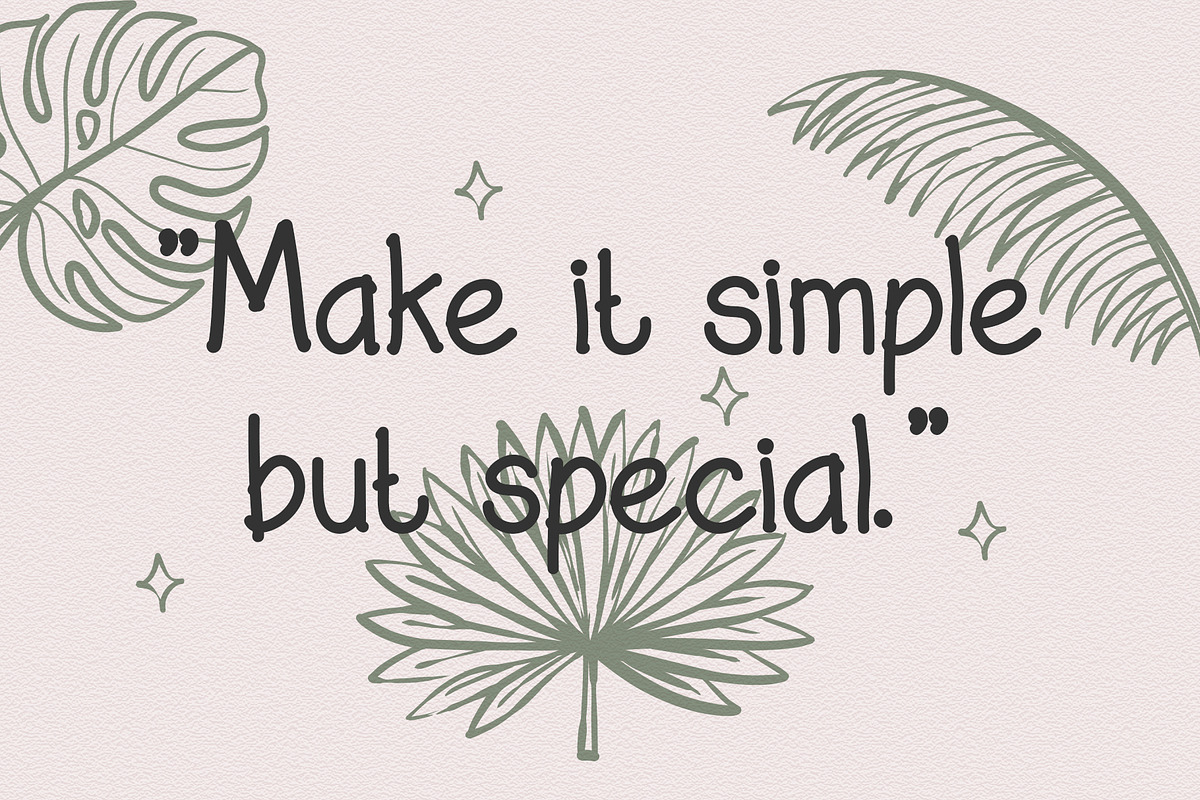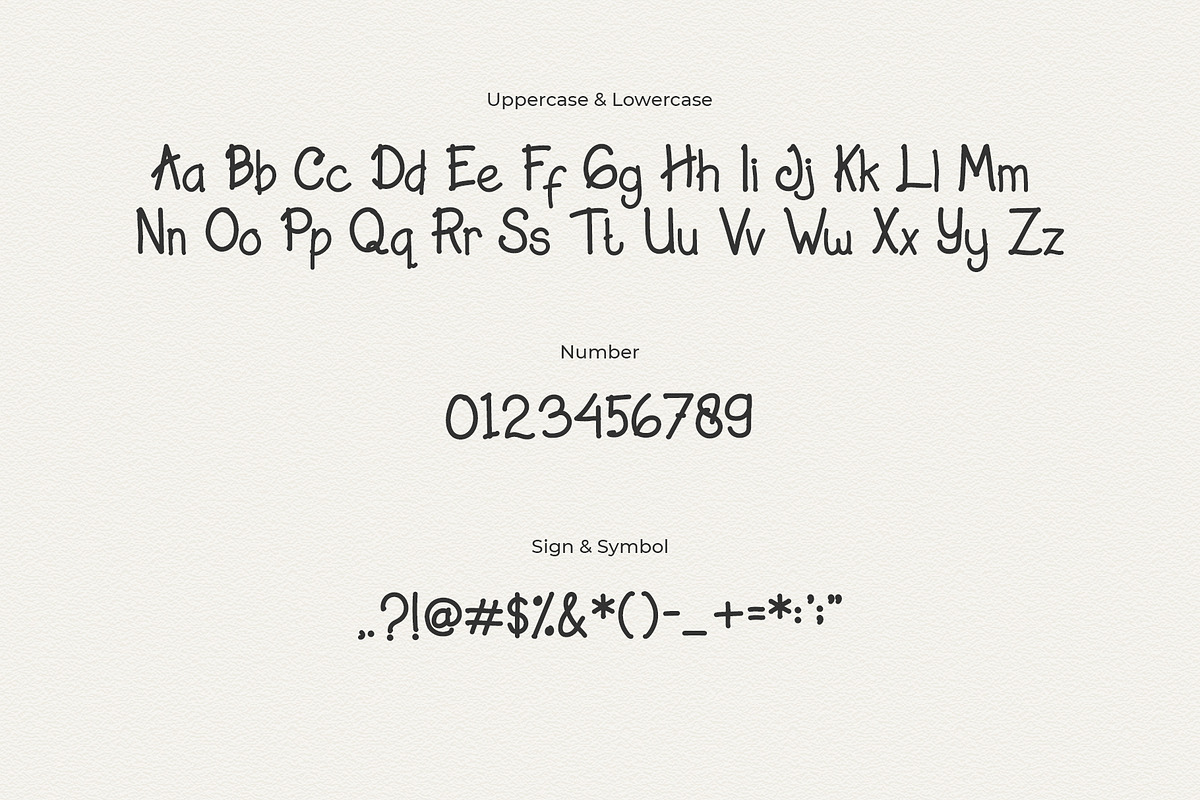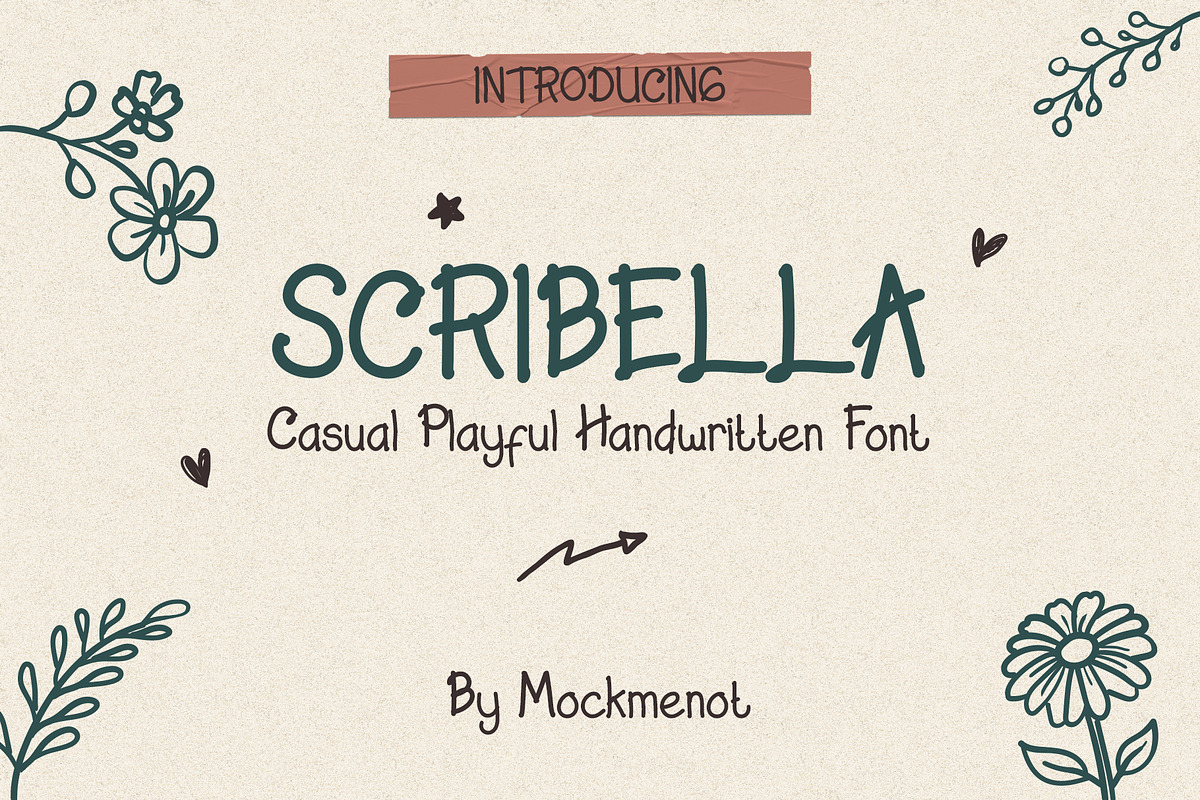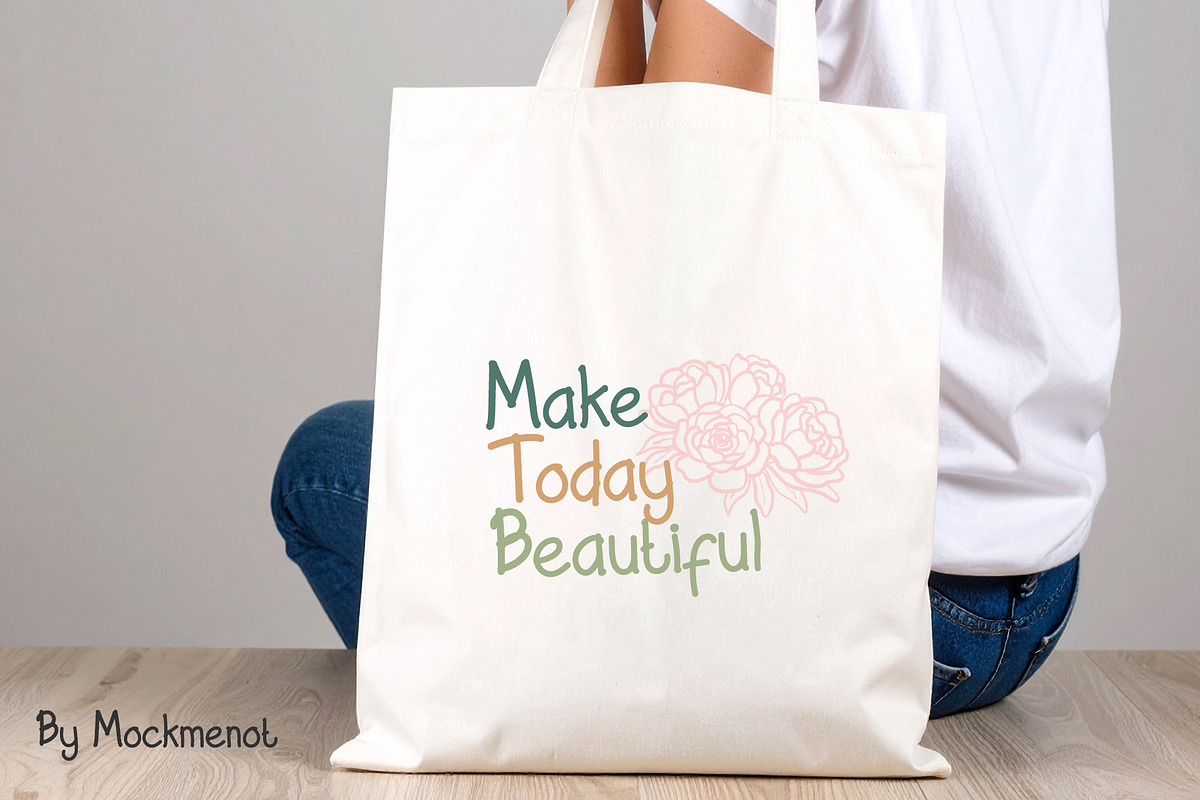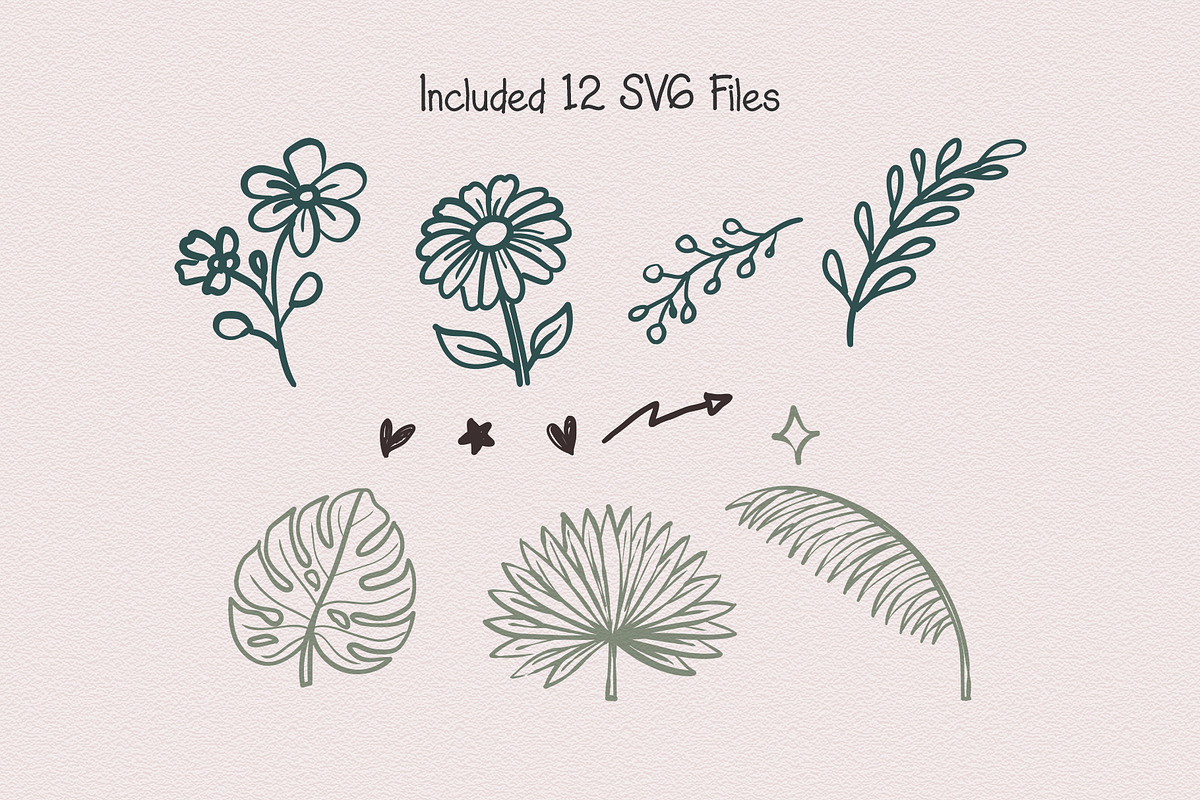
Scribella – Playful Handwritten Font
Introducing Scribella, a playful handwritten font with a natural and friendly look. Its smooth and casual strokes create a charming handwritten feel that adds personality to any design.
Scribella is perfect for designers and crafters who want a font that feels fun, relaxed, and authentic.
• Uppercase & Lowercase Letters • Numbers & Punctuation • Natural Handwritten Style • Easy to Use
Add a playful handwritten touch to your designs with Scribella.